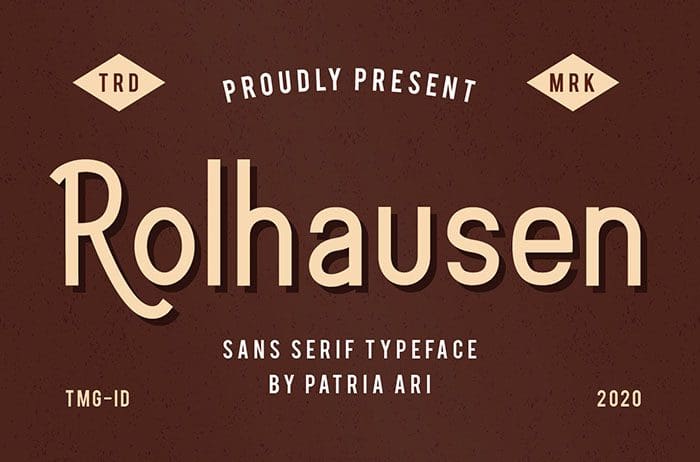
Rolhausen Sans Serif Font
Rolhausen is a Sans Serif Font which is suitable for you who needs a typeface for headline, logotype, apparel, invitation, branding, packaging, advertising etc. Thanks to Patria Ari Typestudio for sharing this font! Take a look at this portfolio for more of his stunning fonts.